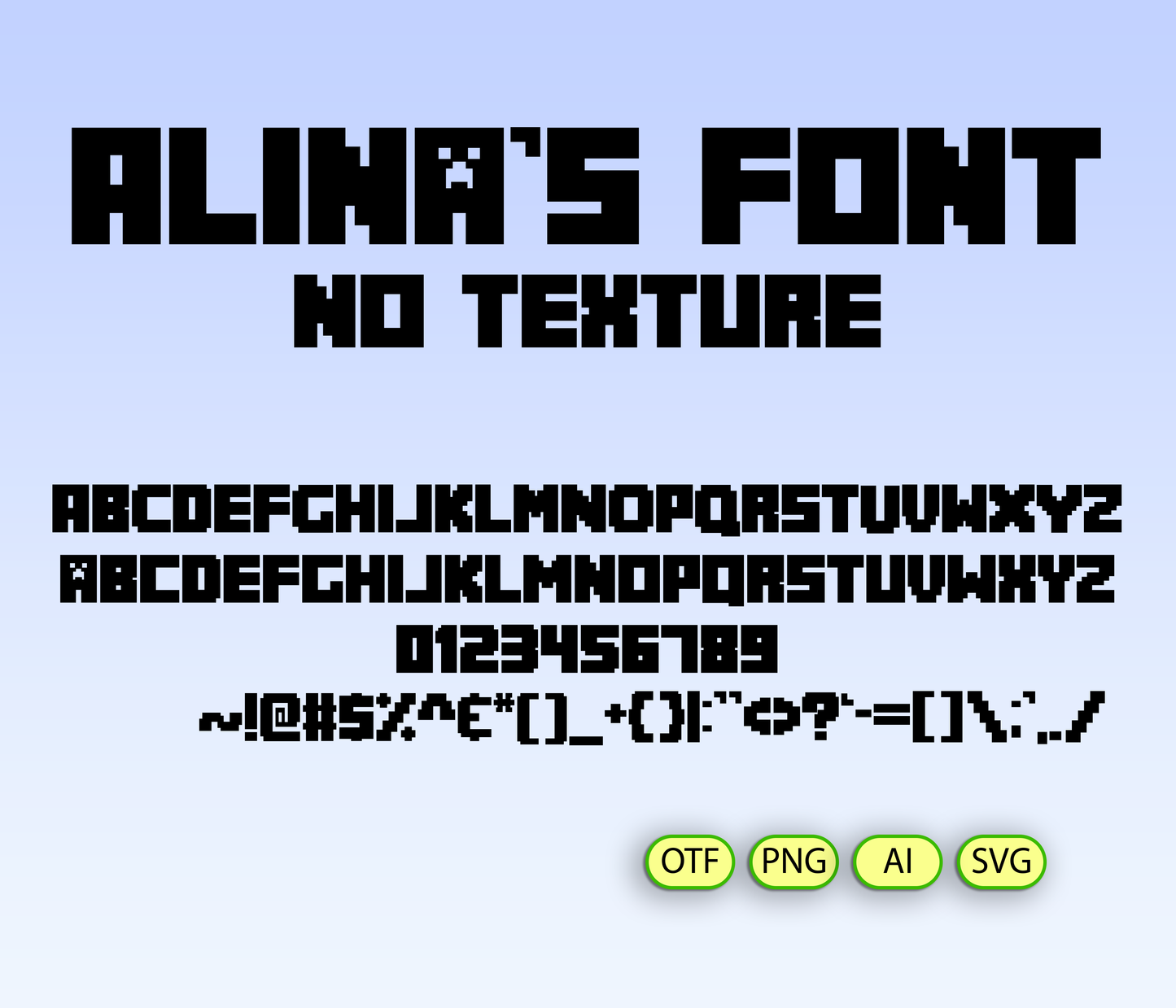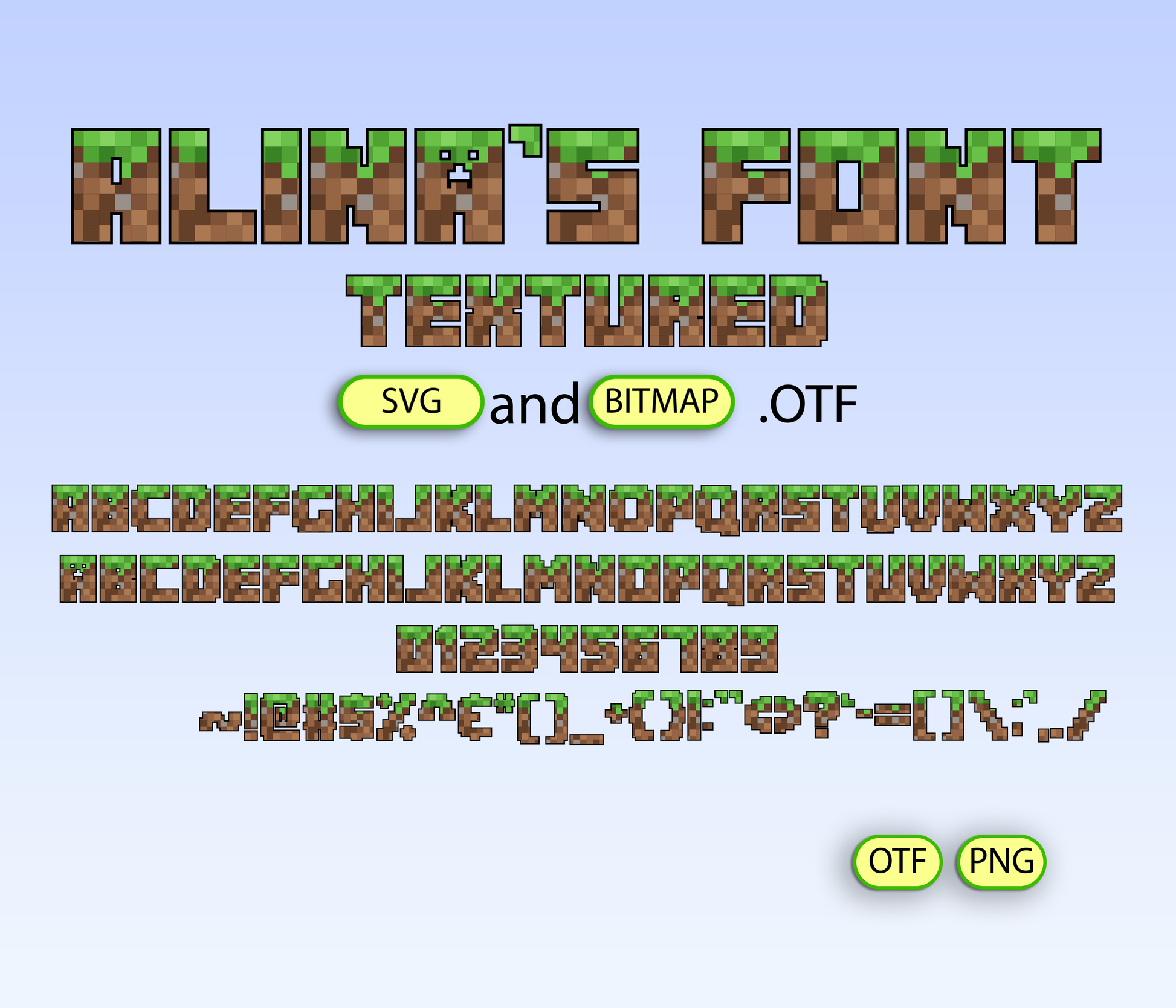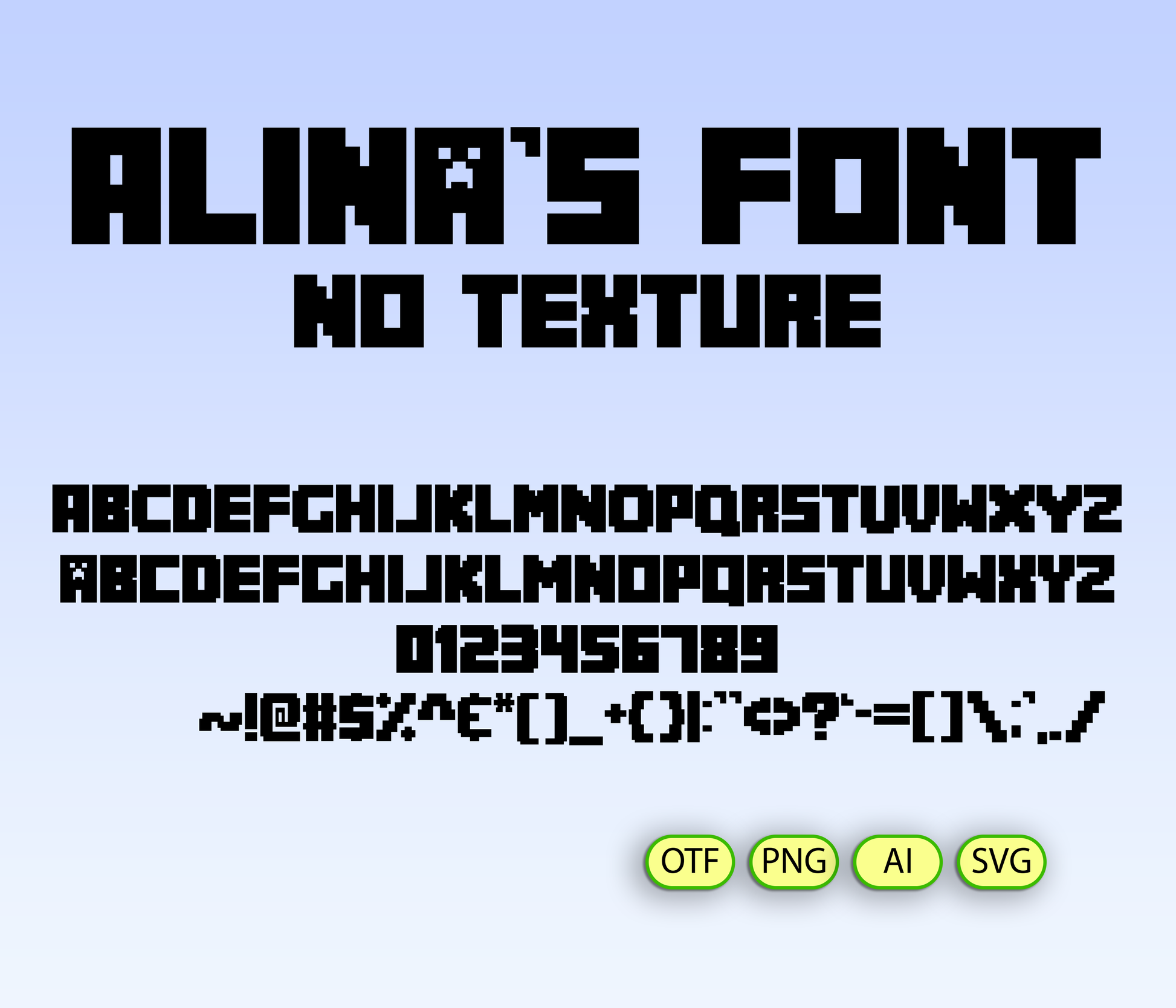
Bloqwerld Font Textured
Step into the pixelated world of cubic adventures with our Bloqwerld font, capturing the essence of block-building creativity and digital exploration. Perfect for gaming fans, pixel creators, event organizers, and designers, this font brings the dynamic, 8-bit spirit of voxel construction to your projects. Create game-themed materials, merchandise, or digital content with the nostalgic energy of virtual world-building.
Our Bloqwerld font features geometric, pixelated lines and cubic characters reflecting the world of digital construction. Ideal for:
1. Event Promotions: Create engaging invites, posters, and banners for gaming sessions, conventions, and themed parties that capture the spirit of block adventures
2. Merchandise Design: Perfect for t-shirts, posters, and accessories that showcase the distinctive pixel aesthetic of construction gaming
3. Digital Media: Enhance websites, blogs, and social media with dynamic headers and graphics that express the charm of 8-bit world-building
4. Gaming Content: Add authentic flair to fan art, game-inspired projects, and creative designs related to block creation
5. Personal Projects: Bring pixelated excitement to scrapbooking, DIY crafts, and home decor inspired by the world of virtual construction
Our font pays tribute to the iconic world of block building games, empowering your designs with its pixelated and creative spirit. Whether crafting promotional materials, designing merchandise, or adding a dynamic touch to personal projects, this font communicates the bold essence of digital construction. Ready to inject cubic creativity into your creations? This font is your key to exciting, impactful design.